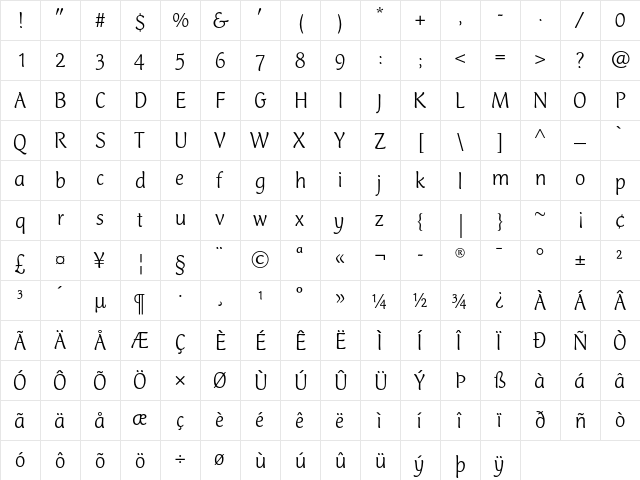
CT Mercurius Light
Design Context for CT Mercurius Typeface
CT Mercurius takes a measured approach to typography — its balanced proportions and neutral character make it a reliable workhorse for both digital and print work. Its slender proportions lend an understated elegance to any composition.
Pro Tip: Use CT Mercurius in both headline and body roles to test its range before committing to a single application.